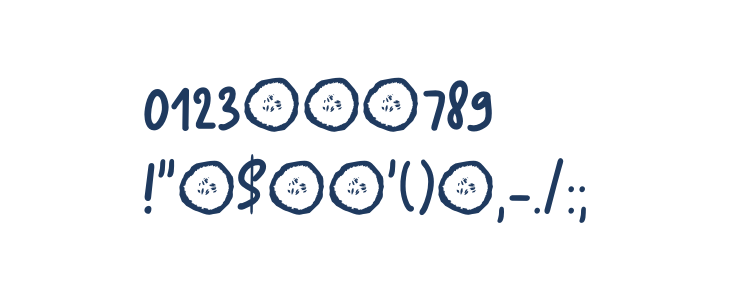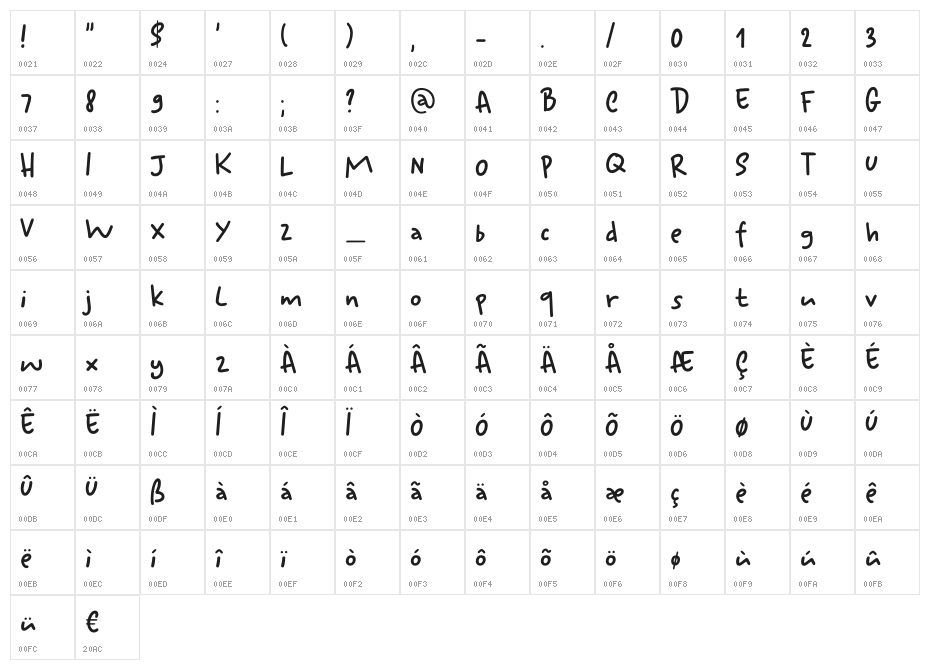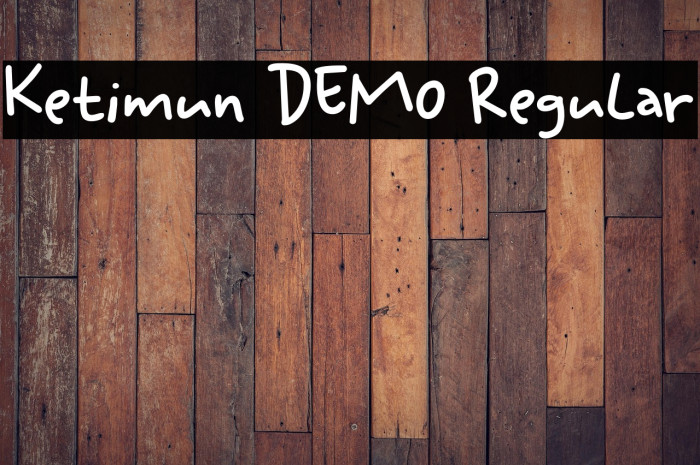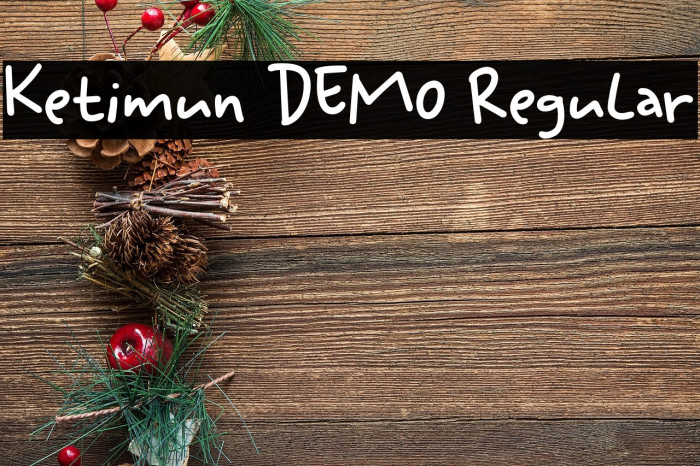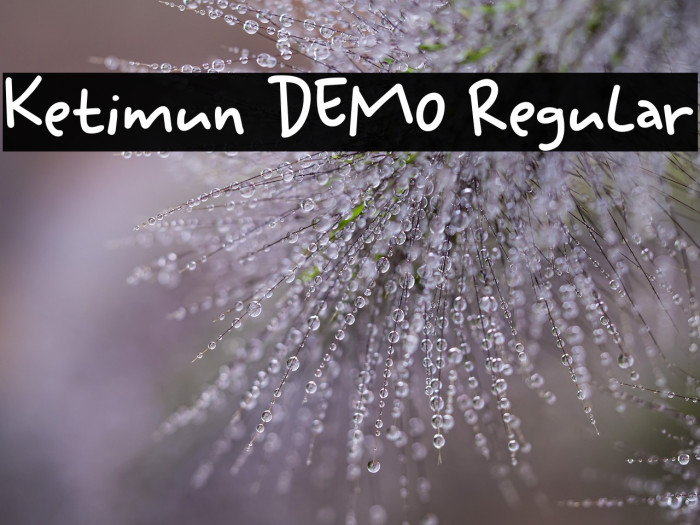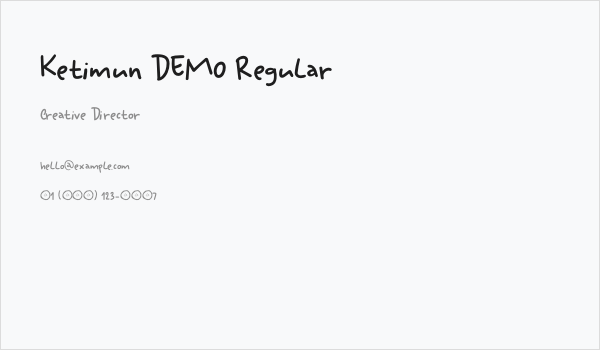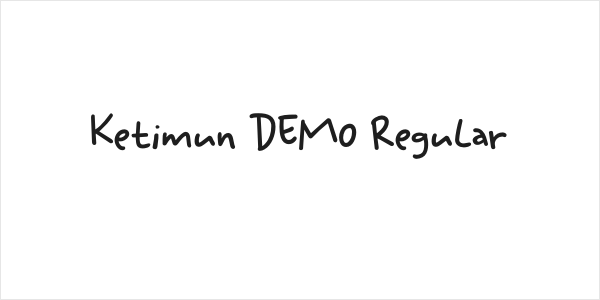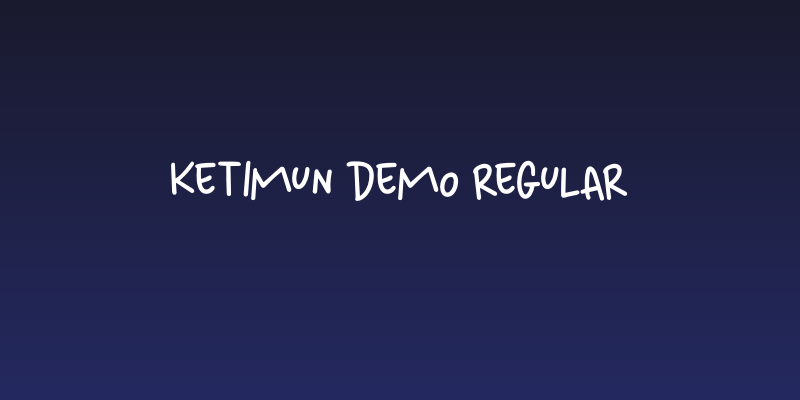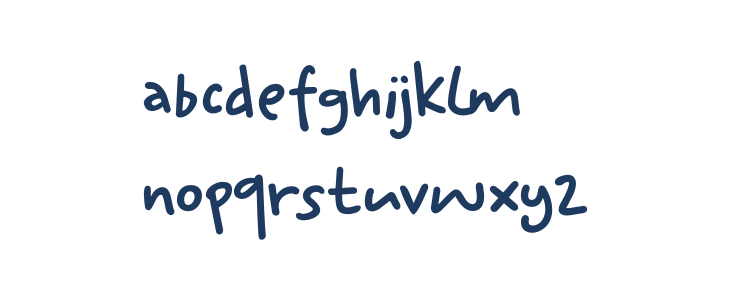
Ketimun DEMO Regular Font
Ketimun DEMO Regular Description
This playful and whimsical font features a handwritten style with a casual and friendly appearance. The characters are slightly irregular, adding to the charm and personality of the typeface. The uppercase and lowercase letters maintain a consistent flow, with rounded edges and a smooth, flowing line quality. The numbers and special characters are designed to match the overall style, ensuring a cohesive look across all text elements. This font is perfect for projects that require a personal touch or a fun, informal vibe.
| Use Case | Headlines, Informal text, Branding |
| Proposed Projects | Ideal for children's books, greeting cards, playful branding, and social media graphics. |